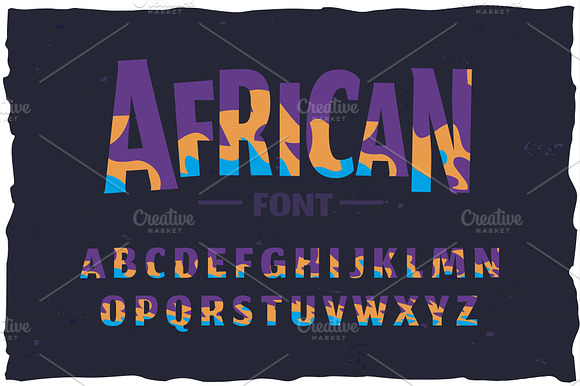
OTF color font! Funny african style
Why OTF color font! Funny african style is worth a look
OTF color font! Funny african style by Fractal fonts & graphics fits naturally into Branding, posters, packaging, typography.